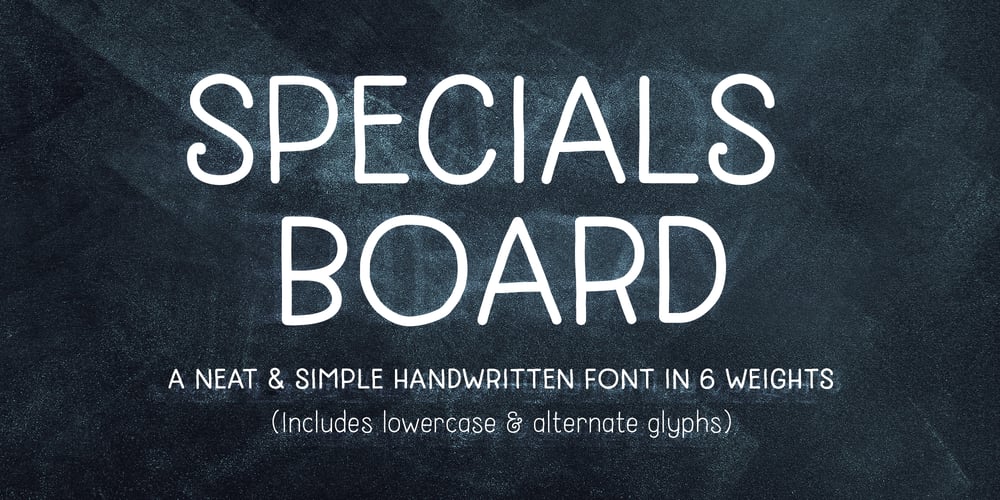
Specials Board Font Family was designed by Richard Chambers and published by Borderline Artistic. Specials Board contains 6 styles and family package options. Specials Board is a clear, quirky handwritten display font in 6 weights. The font delivers a handcrafted personal feel and is great for clear messaging or to create an artisan, organic, natural aesthetic. Originally created for use in a coffee shop the font’s handwritten playful nature allows it to work well across numerous use cases such as food and drink, retail, children / kids products and more. The font also includes alternatives for several glyphs.